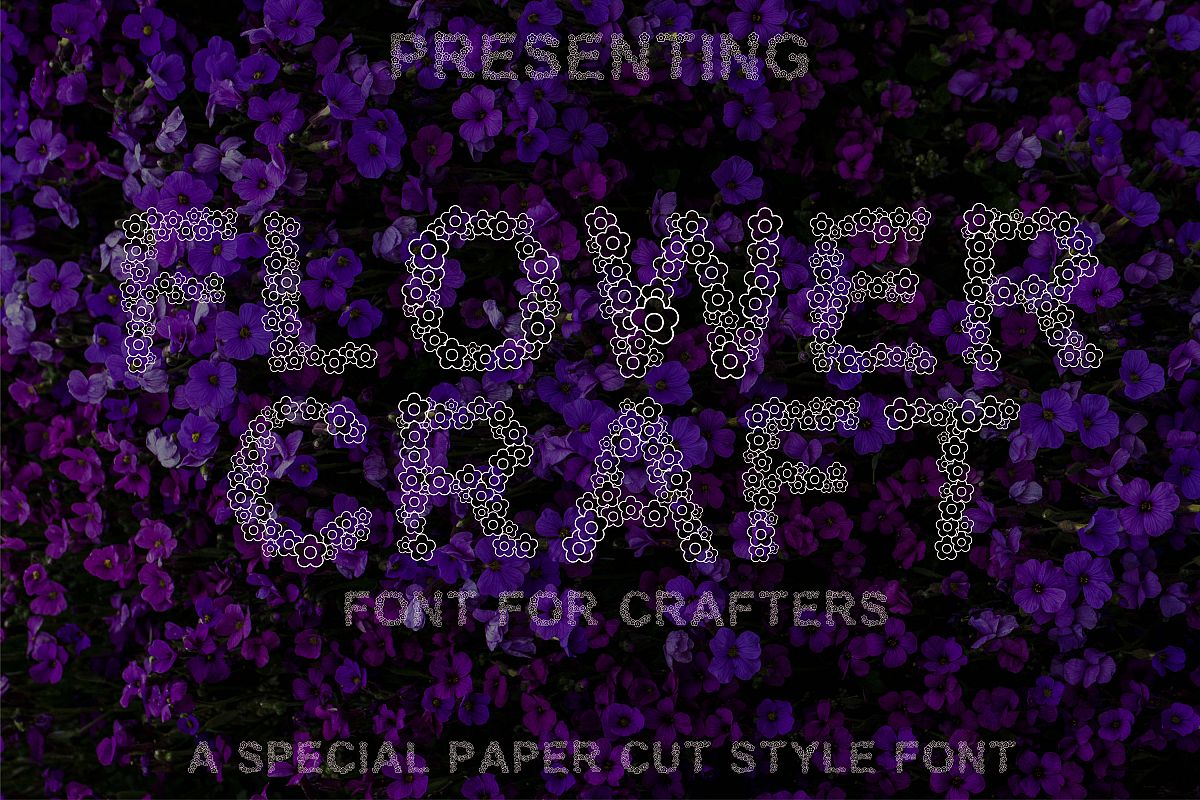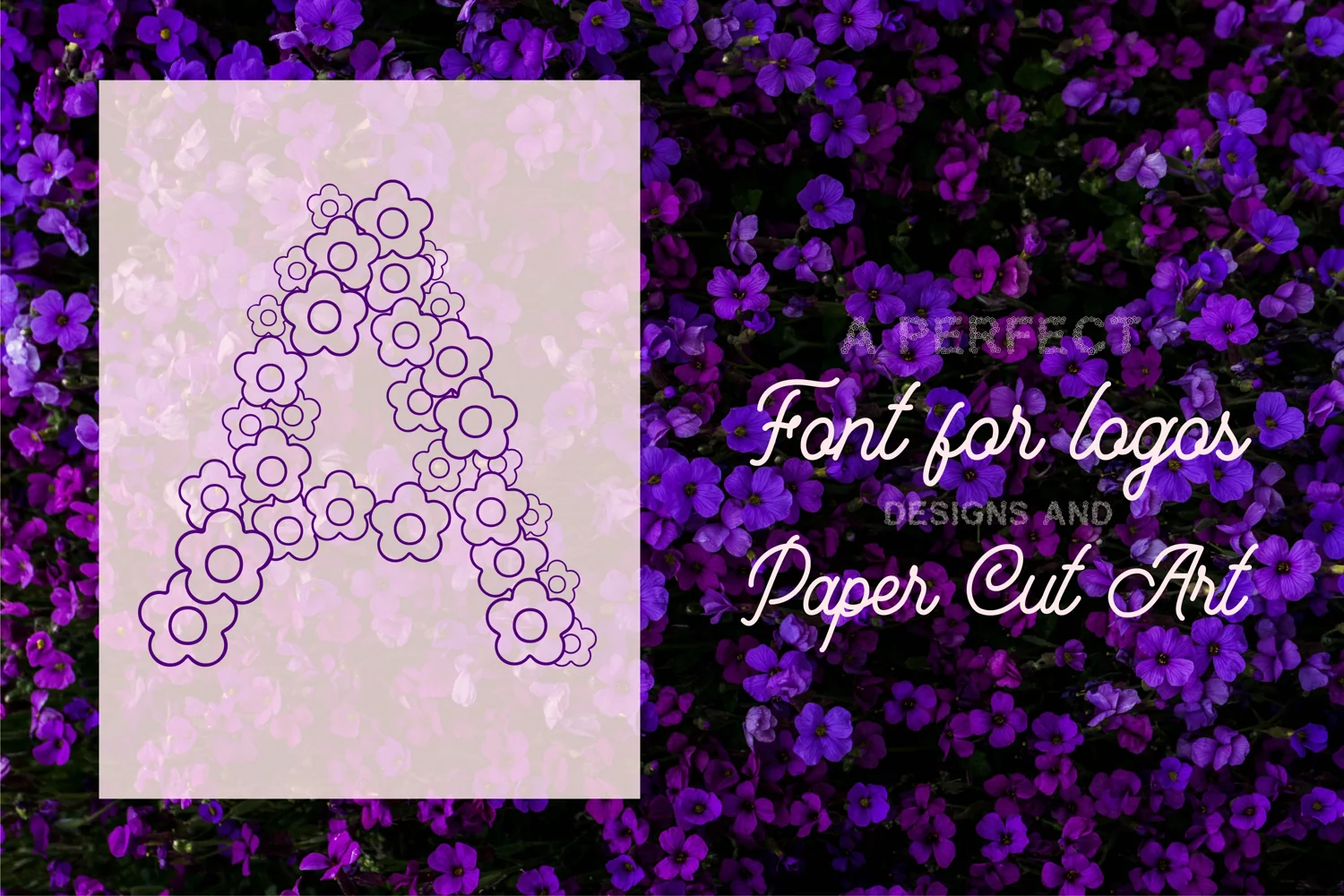
Flower Craft - Alphabets Flower Font For Crafters
Presenting Cute font for you. This Special Paper Cut flower Font can be used in tons of projects specially in child and new born projects. You can use it for craft purpose and this will looks great on shirts, printing material and other stuff.
2- UPPER Case only Letters A to Z and 0 to 9
3- Super Cute and Creative